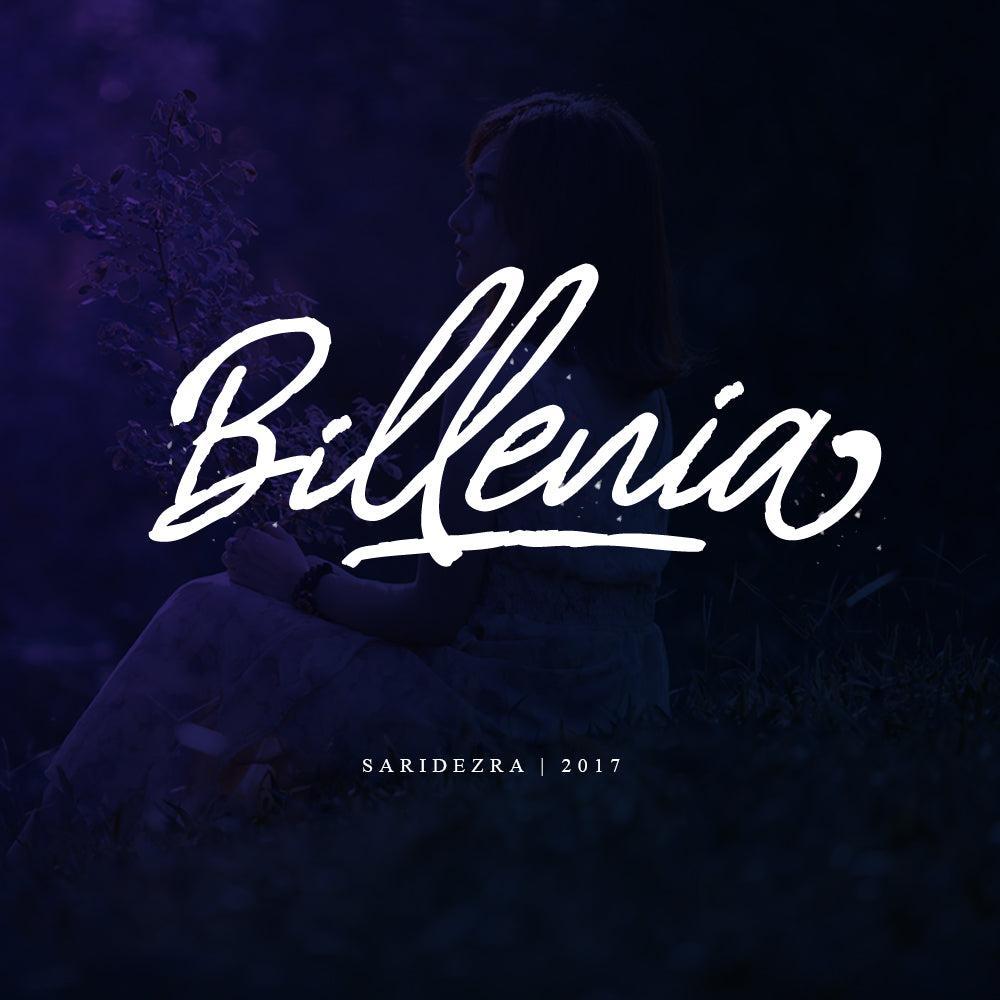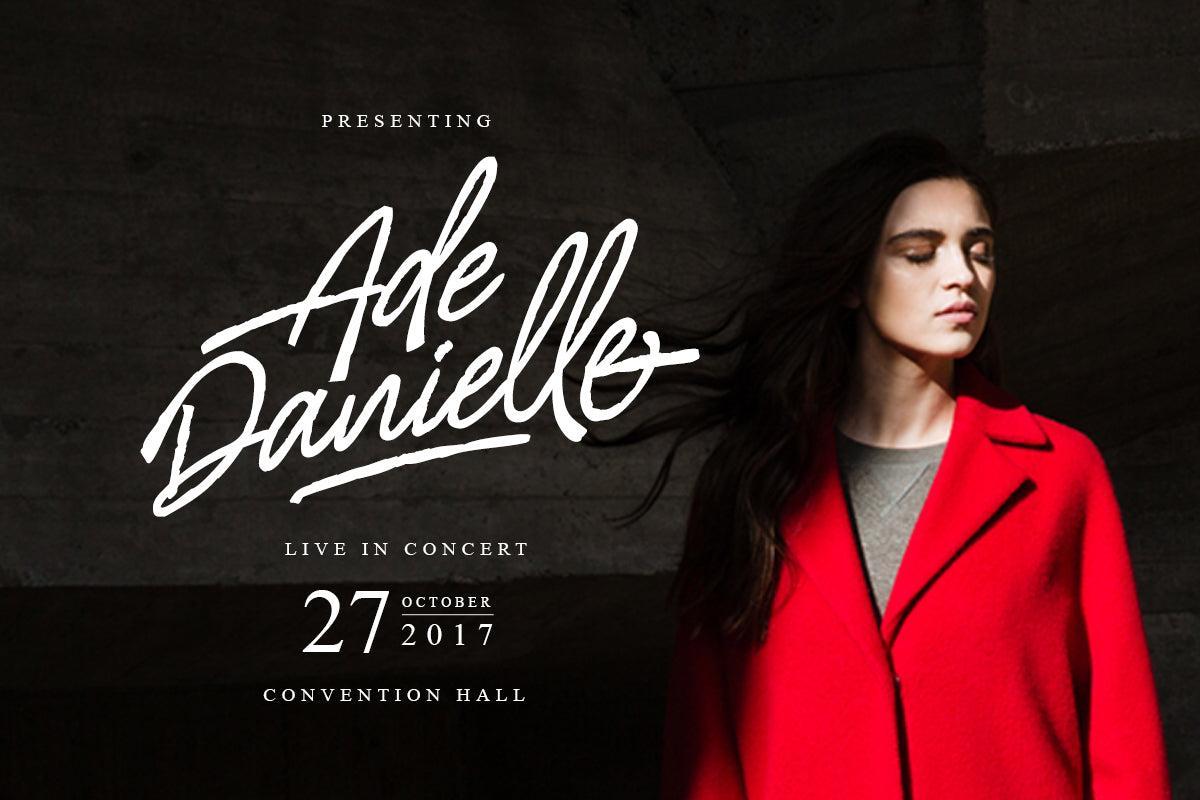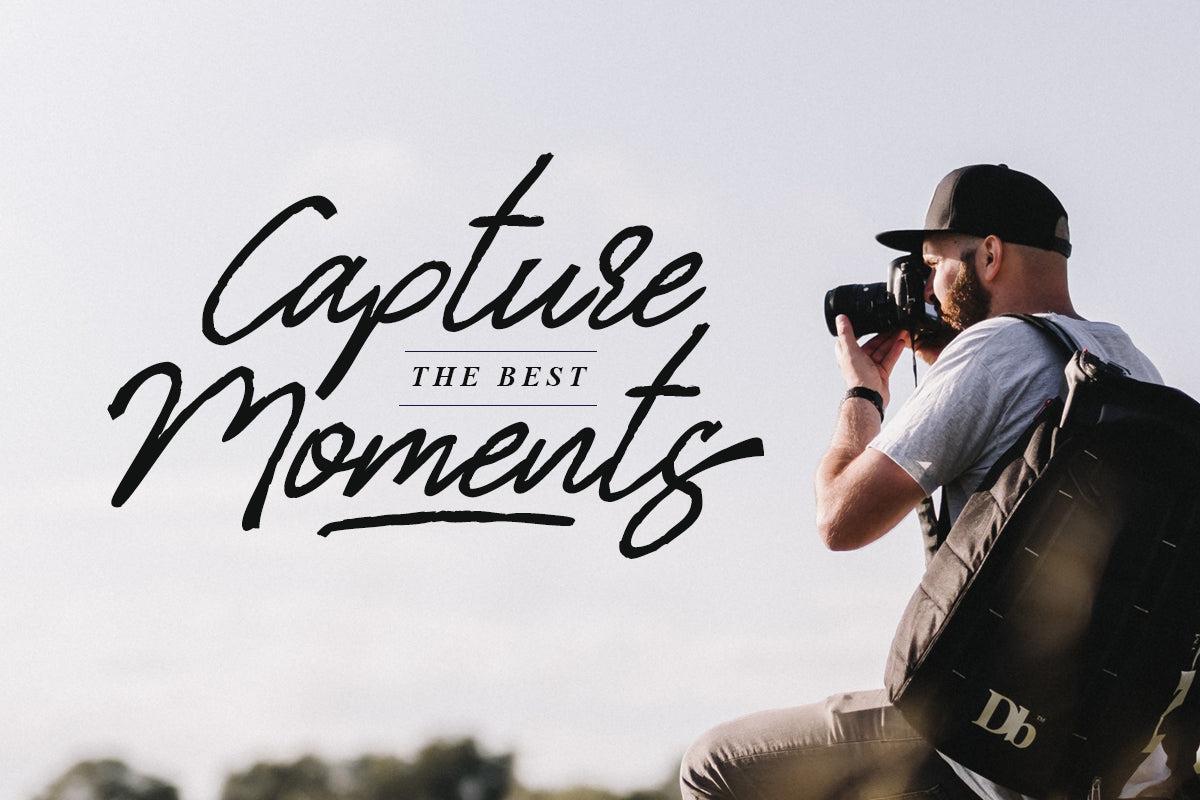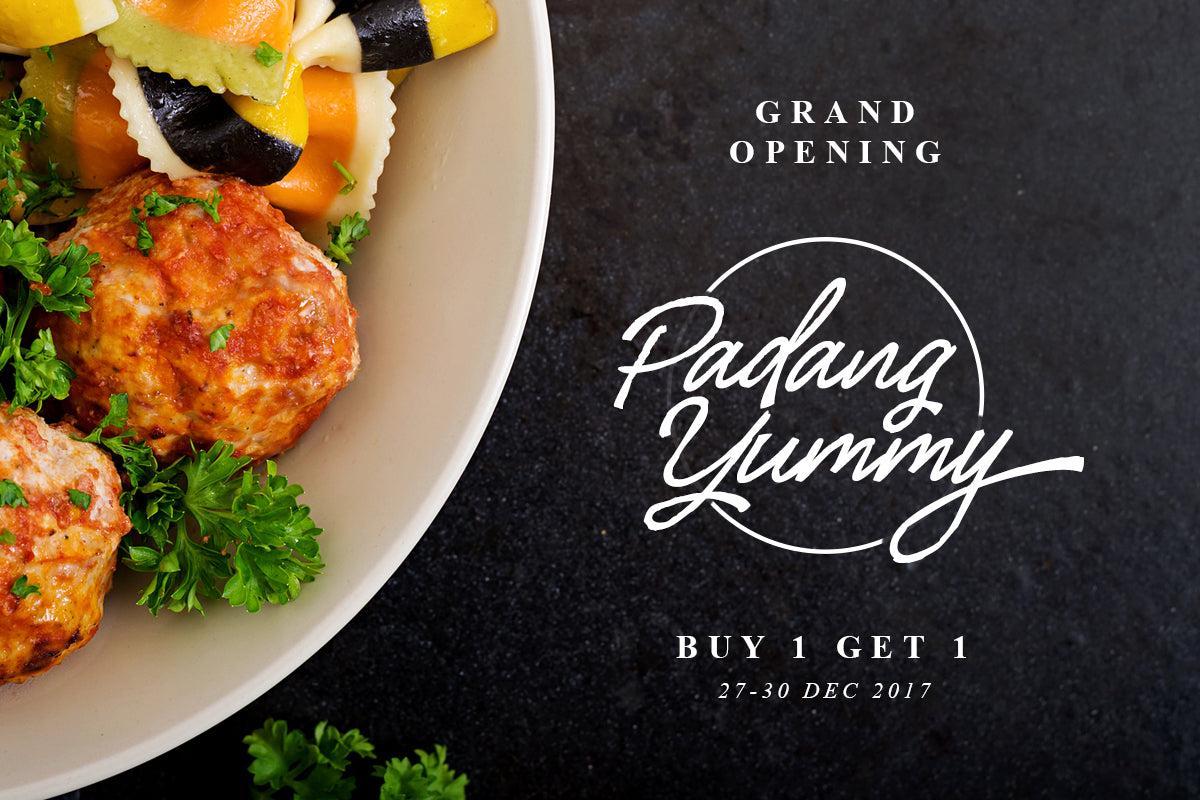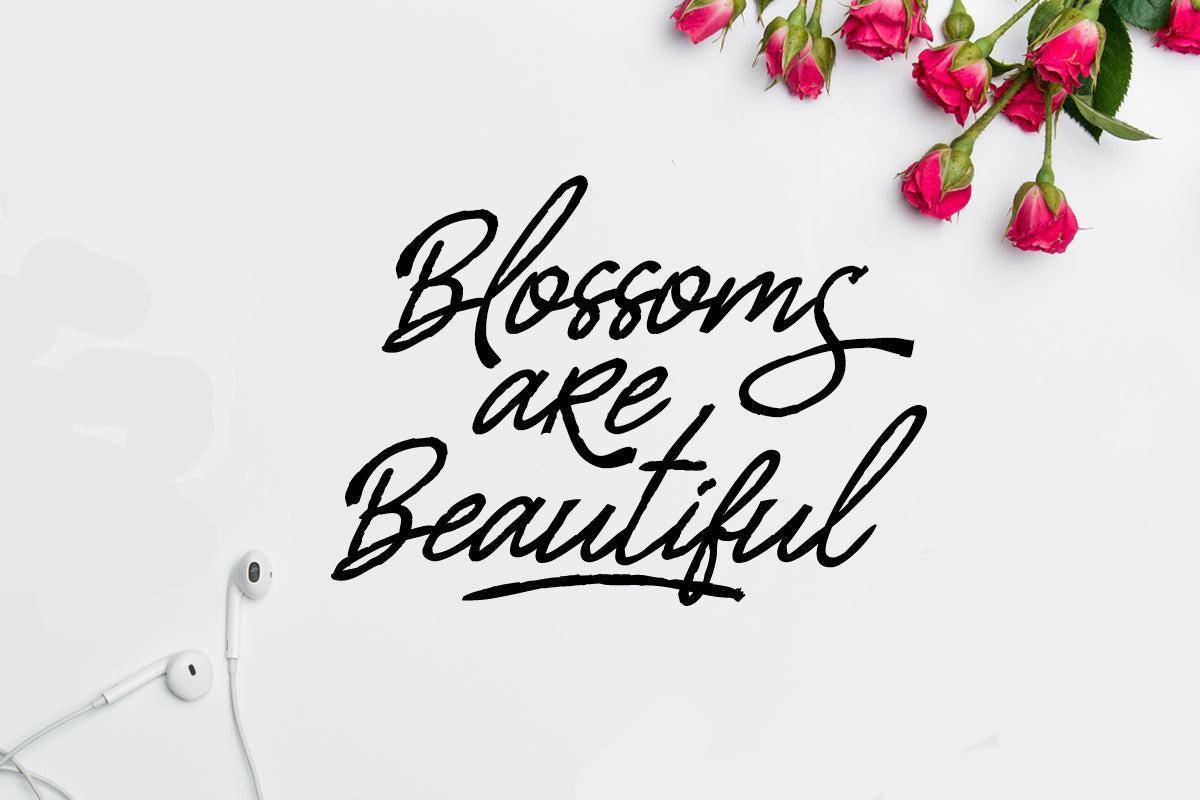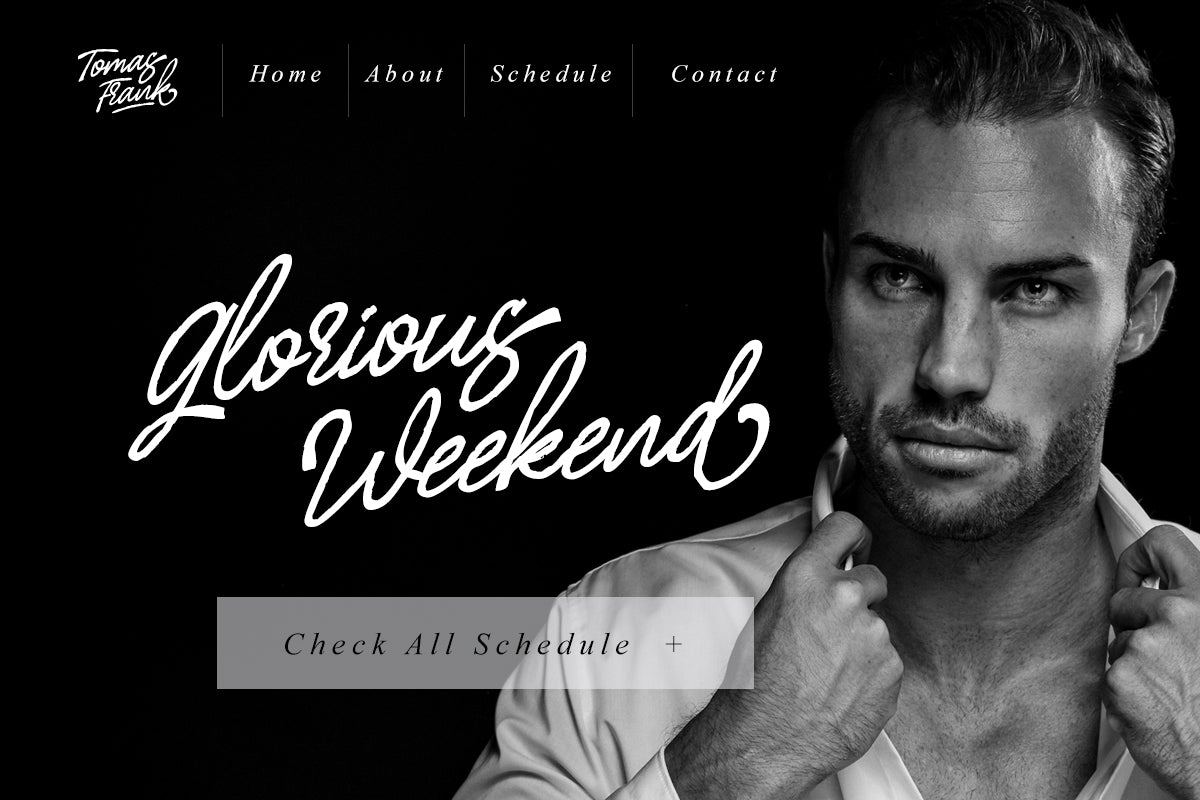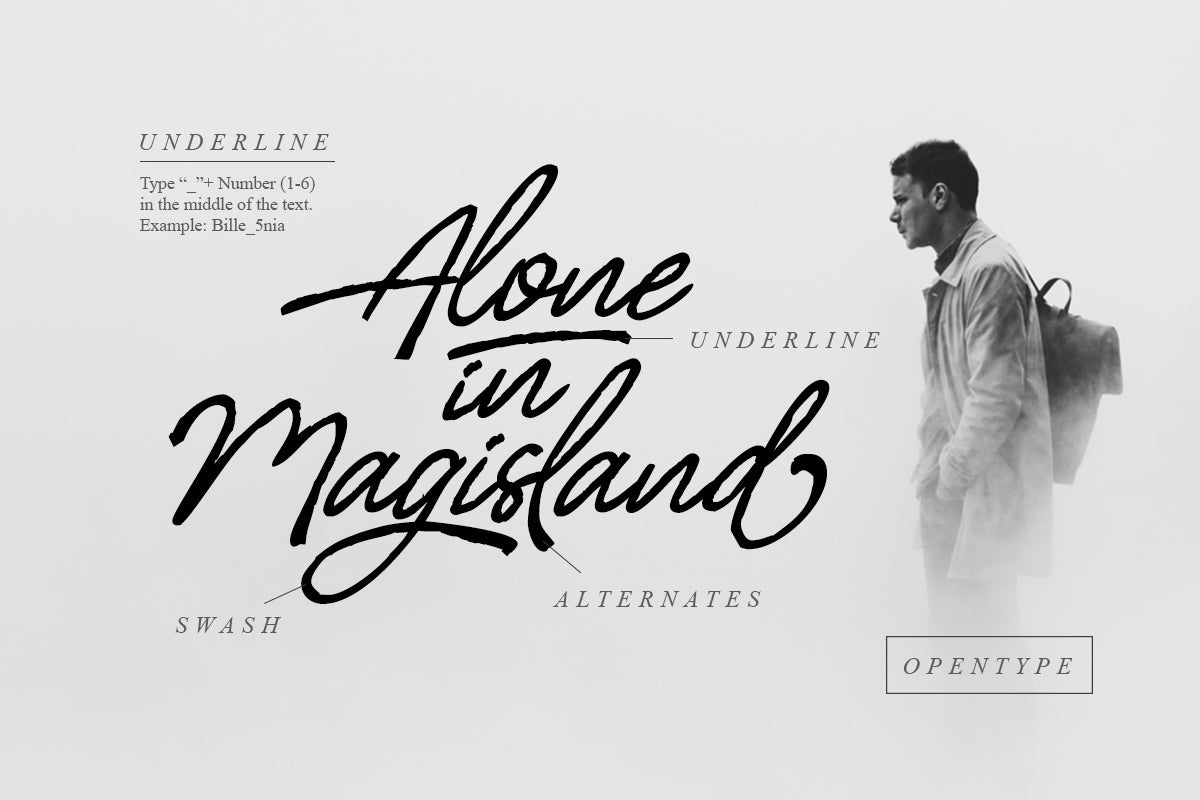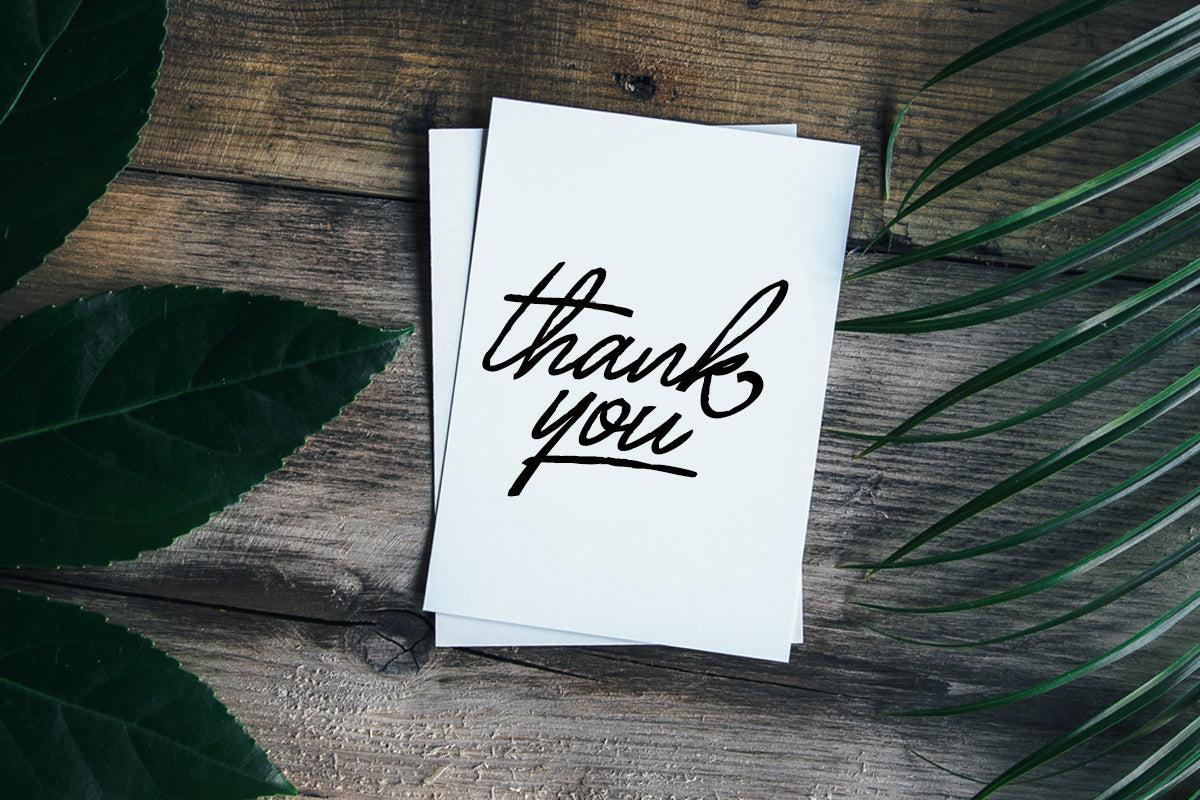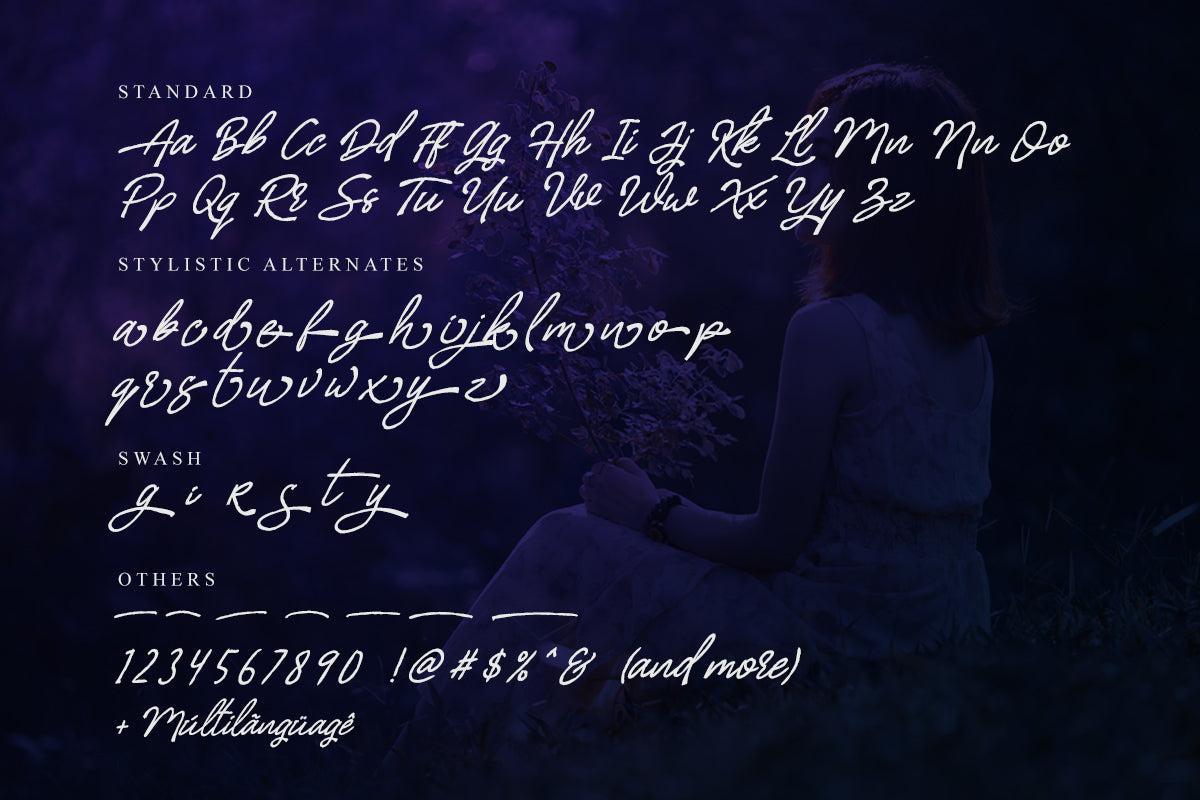
Billenia - Script Font
Billenia is a handwritten script font that includes stylistic alternates and swashes for customizable signatures. It supports multiple languages and is available in both OTF and TTF formats, with PUA encoding for easy access to special characters.